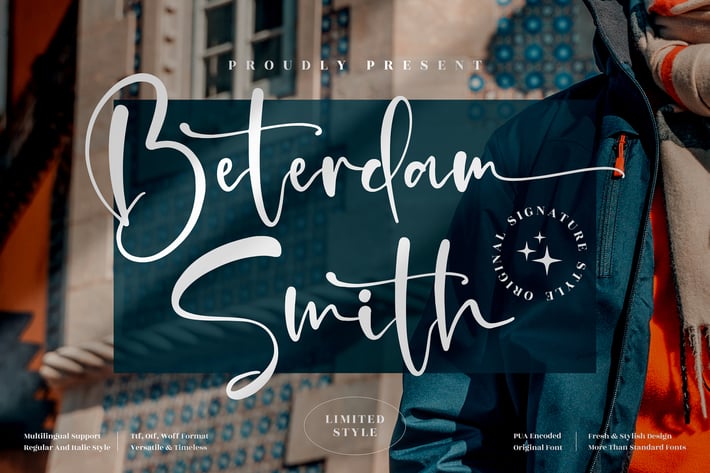
Beterdam Smith Signature Font
Beterdam Smith is a stylish signature font with smooth handwritten strokes and a timeless flow. Its elegant curves and versatile character make it perfect for projects that require a modern yet personal touch, giving your designs sophistication and authenticity.
+ Handwritten signature style with flowing curves
+ Modern and elegant feel
+ Works well in both print and digital media
+ Branding & logos
+ Fashion and lifestyle projects
+ Invitations & stationery
+ Editorial designs
+ Social media graphics
+ Posters & promotional materials
Bring elegance and personality to your work with Beterdam Smith — the signature font that blends timeless style with modern sophistication.